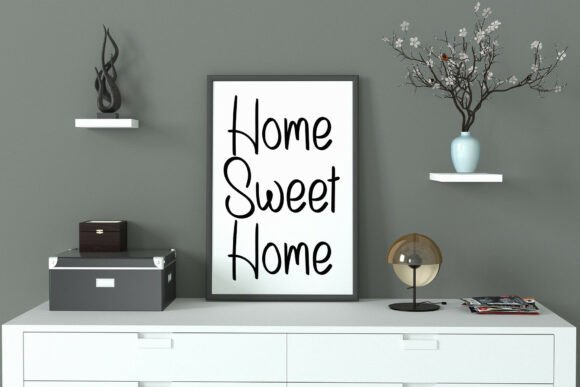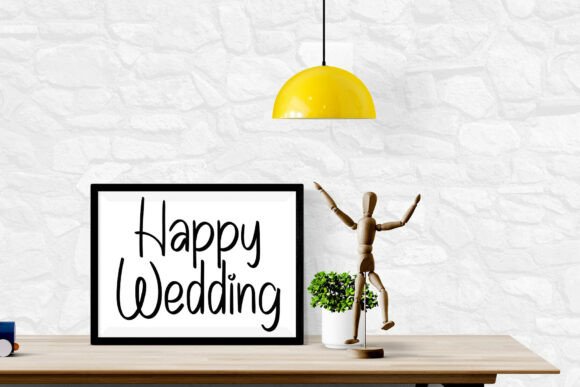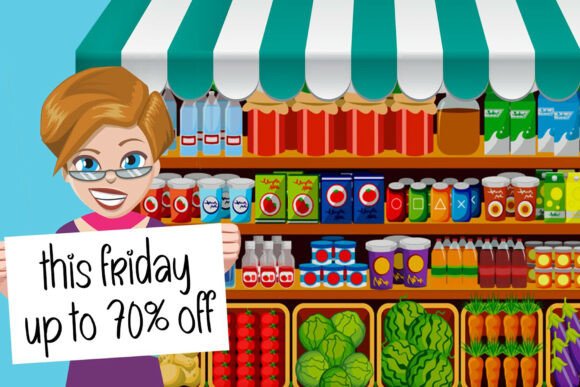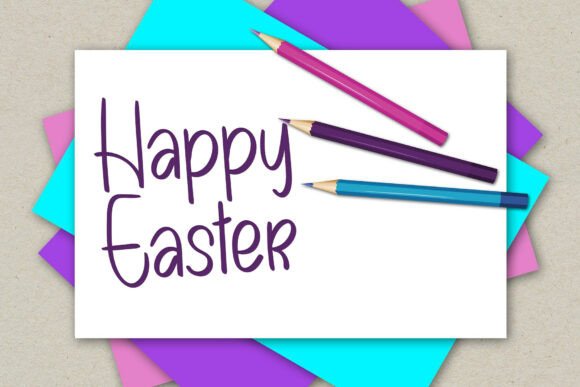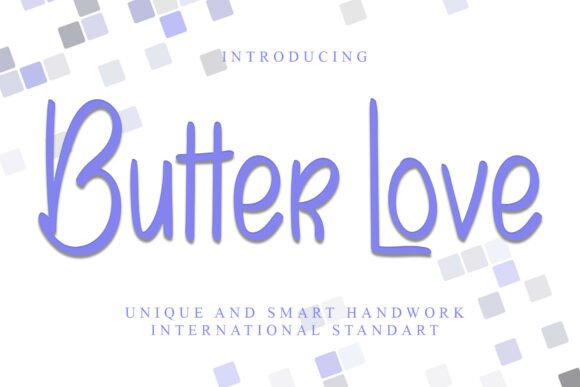
Introducing Butter Love Font: The Epitome of Modern Elegance
In the realm of typography, few fonts manage to strike a balance between elegance, readability, and modern charm. However, Butter Love Font stands out as a beacon of sophistication, designed to elevate your digital and print projects to new heights. This article delves into the features, applications, and benefits of using Butter Love – Slim Casual Handwritten Font in your creative endeavors.
The Essence of Butter Love Font
Butter Love is not just another handwritten font; it’s a meticulously crafted typeface that embodies smoothness, effortlessness, and a contemporary allure. Its design is rooted in international standards, ensuring it meets the diverse needs of designers and crafters worldwide. The font’s ultra-slim, elongated line weights and fluid, casual curves contribute to its airy and minimalist aesthetic, making it a perfect choice for projects that demand a sleek, modern look.
Key Features of Butter Love Font
- Ultra-Slim Line Weights: The font’s slender lines create a light, airy feel, adding a touch of elegance to any design.
- Fluid and Casual Curves: These curves enhance the font’s readability while maintaining its casual, approachable vibe.
- High Readability: Despite its slim design, Butter Love ensures maximum readability, making it suitable for a wide range of applications.
- Sleek and Hand-Done Style: The font’s handcrafted look adds a personal touch to your designs, setting them apart from more generic typefaces.
Applications of Butter Love Font
The versatility of Butter Love Font makes it an excellent choice for various design projects. Here are some of the areas where it truly shines:
- Clean Lifestyle Blogging Graphics: Add a touch of sophistication to your blog posts and social media content.
- Chic Product Packaging: Elevate your brand’s packaging design with a font that exudes modern elegance.
- Modern Fashion Lookbooks: Showcase your fashion designs with a stylish and contemporary typeface.
- Personalized Signature Watermarks: Add a professional, personalized touch to your photos and digital artwork.
- Quote Posters: Create visually appealing posters that convey your message with style and elegance.
- Elegant Stationery Sets: Complete your stationery designs with a font that offers both sophistication and readability.
Benefits of Using Butter Love Font
Choosing Butter Love Font for your projects comes with numerous benefits, including:
- Unique and Smart Design: Stand out from the crowd with a font that combines modern charm with classic elegance.
- Versatility: Use it across various platforms and design types, from digital to print.
- Time-Saving: Its readability and aesthetic appeal save you time in design adjustments and revisions.
- Professional Look: Instantly elevate the professionalism of your designs, making them more engaging to your audience.
Butter Love – Slim Casual Handwritten Font is more than just a typeface; it’s a design statement. Its blend of modern charm, elegance, and readability makes it an invaluable asset for designers and crafters looking to add a sophisticated touch to their work. Whether you’re creating lifestyle blogs, fashion lookbooks, or elegant stationery, Butter Love Font is poised to become your go-to choice for projects that demand a sleek, contemporary edge.
Embrace the beauty of Butter Love Font and discover a world where typography meets art, elevating your designs to new heights of elegance and sophistication.